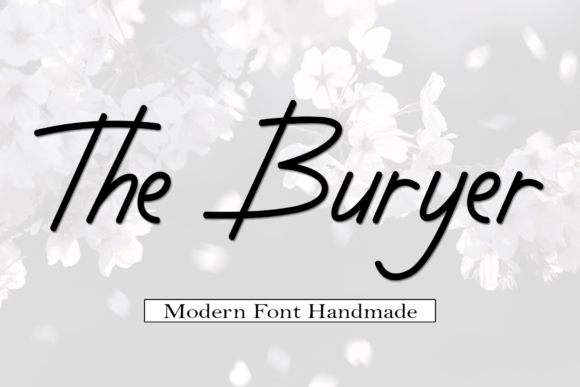
Step into the world of breathtaking beauty with The Buryer Font, a captivating script font crafted to elevate your designs to new heights of elegance. Let your words dance with grace as they take shape in this mesmerizing font, leaving an indelible mark on the hearts of your audience.
Journey through the realm of romance, where The Buryer Font intertwines the timeless essence of handwritten charm with a touch of modern sophistication. Each letter flows effortlessly, evoking a sense of delicate artistry that will enchant and captivate.
Unleash your creativity and let The Buryer Font transform your designs into masterpieces. From wedding invitations that exude timeless romance to thank you cards that overflow with gratitude, this font adds a touch of heartfelt elegance to every occasion.
Envision your designs adorned with The Buryer Font's graceful strokes, leaving a lasting impression on your clients and loved ones. Whether it's a mesmerizing logo that speaks volumes about your brand or a business card that exudes professionalism, this font elevates your message to new levels of sophistication.
The Buryer Font is more than just a collection of letters; it's an invitation to embark on a creative odyssey. With its versatility, it seamlessly adapts to any design project, whispering stories of love, joy, and elegance.
So, let The Buryer Font ignite your imagination and craft designs that resonate with your audience on a profound level. Experience the exquisite beauty of this font and watch as your creations bloom into works of art.